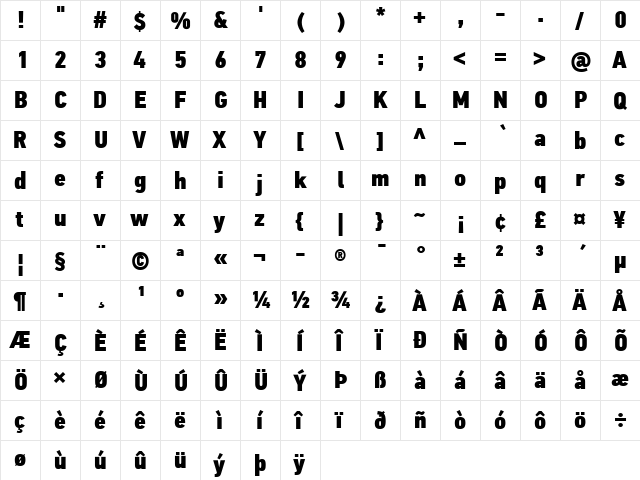
PF Din Text Cond Pro Extra Black
| Foundry | Parachute蠗orldwide |
| Designer | Panos Vassiliou |
Design Context for PF Din Text Cond Pro Typeface
PF Din Text Cond Pro is a composed and adaptable typeface that performs quietly and consistently across a wide range of design contexts. Its narrow stance lets it pack a punch even in space-constrained designs.